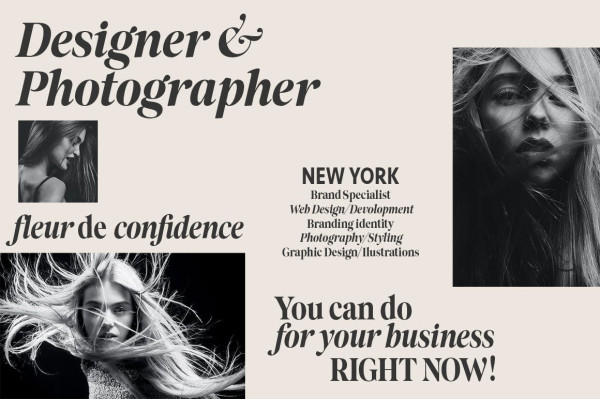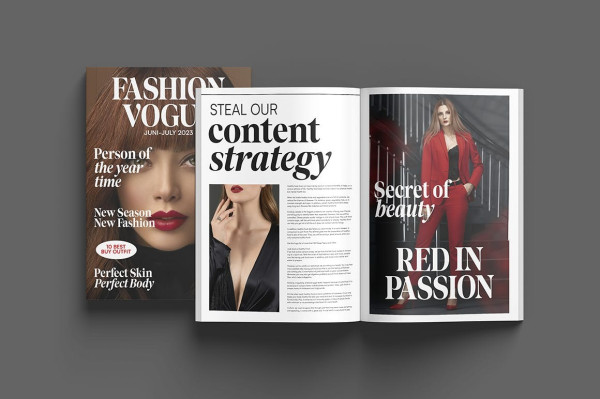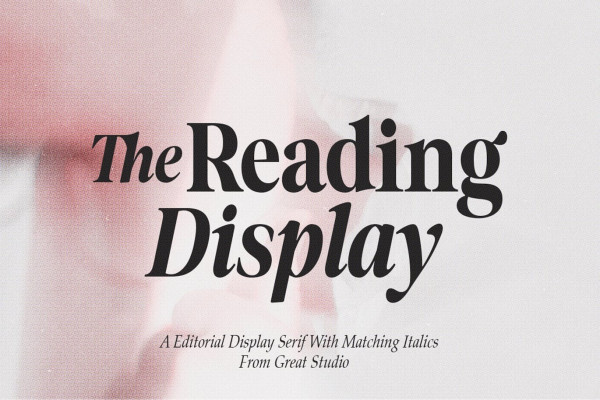
The Reading Display Font
The Reading Display Font, is a new editorial serif with clean, smooth lines, tight curves and a sleek, fashionable look. The Reading Display offers two versions of the font i.e. Regular Serif and Condensed Serif which come equipped with an italic version style, perfect for your design needs such as creating nostalgic designs while still being clean and classy. such as titles, magazines, logos, packaging, editorials, etc.